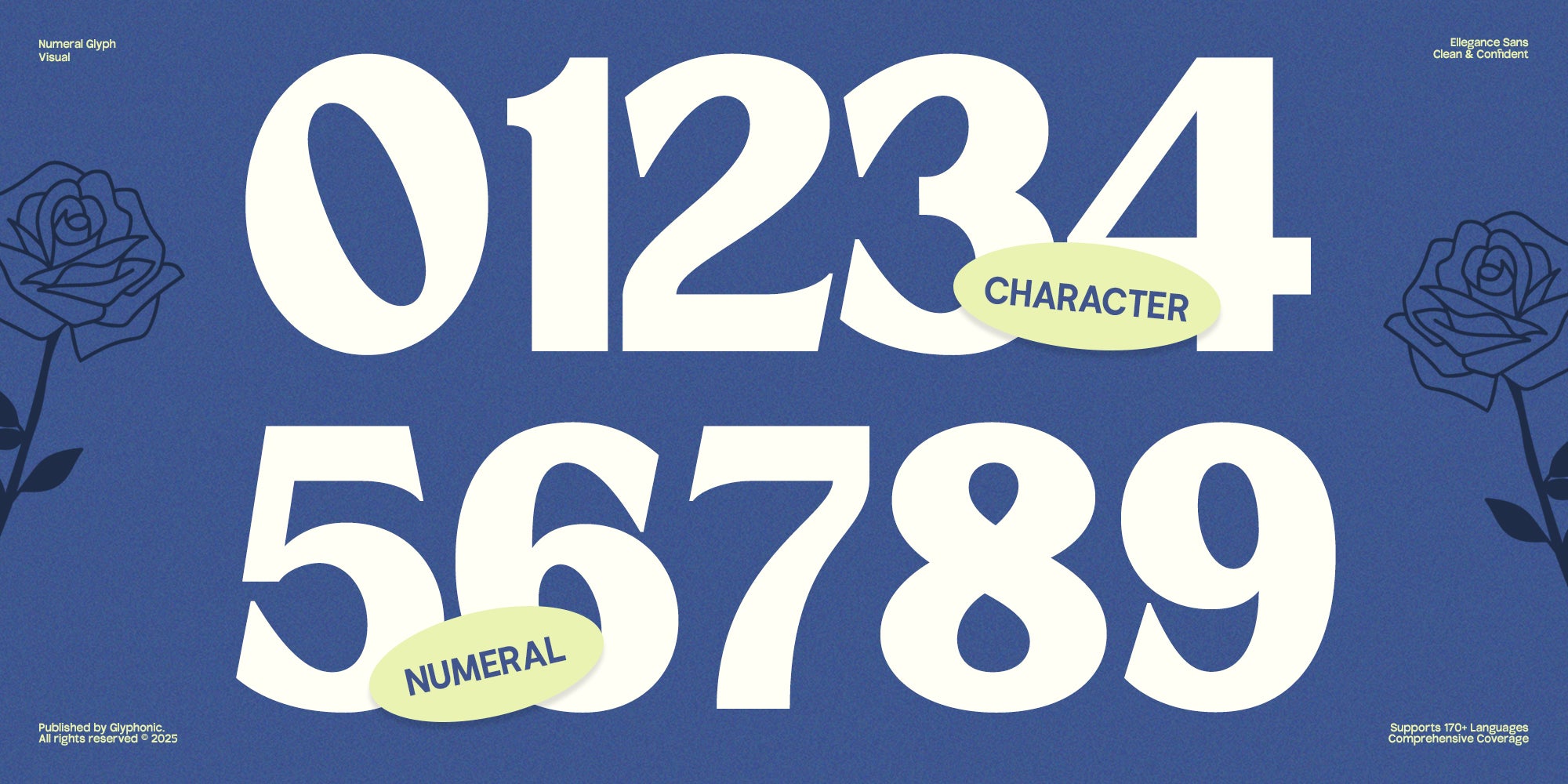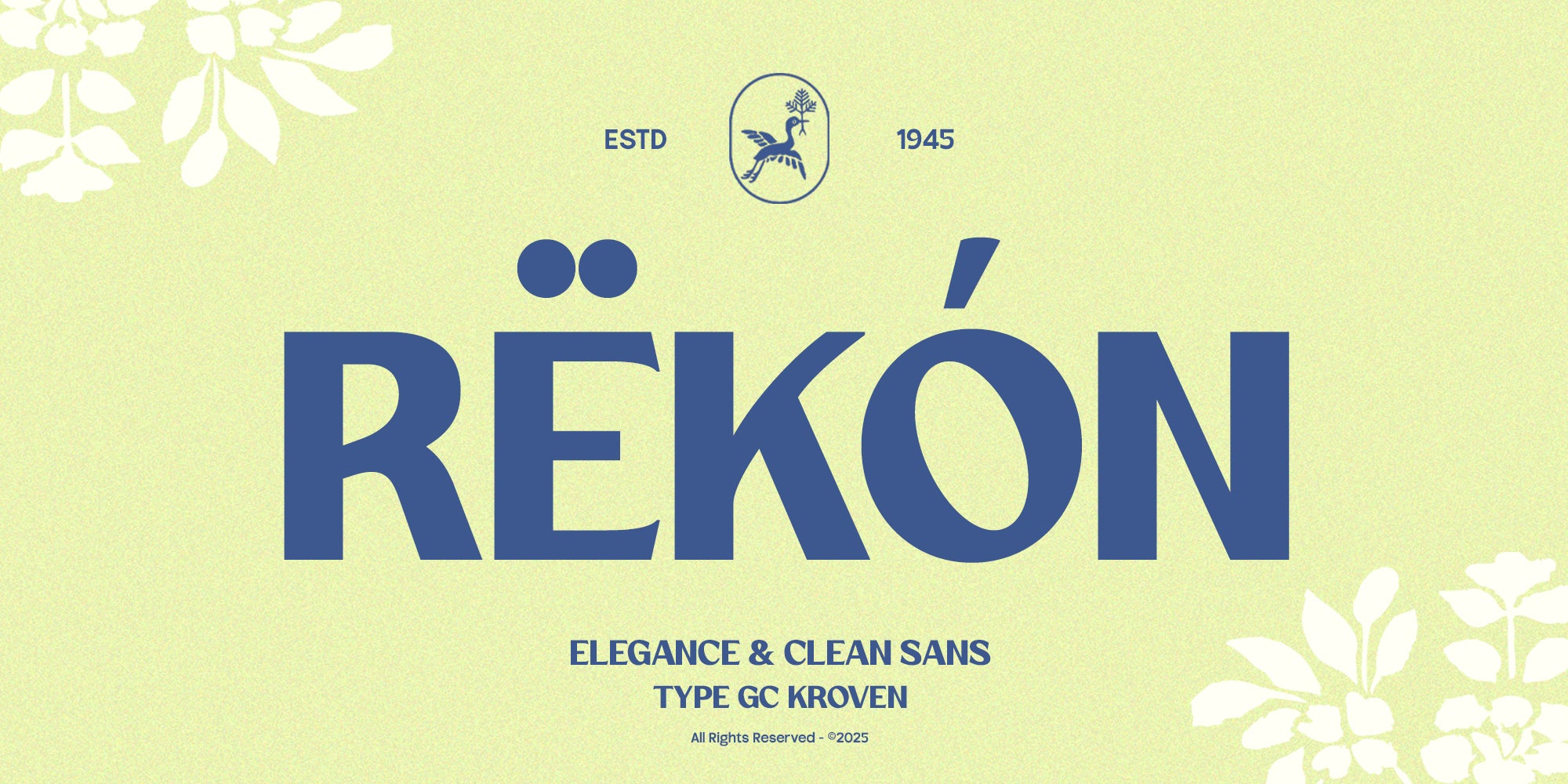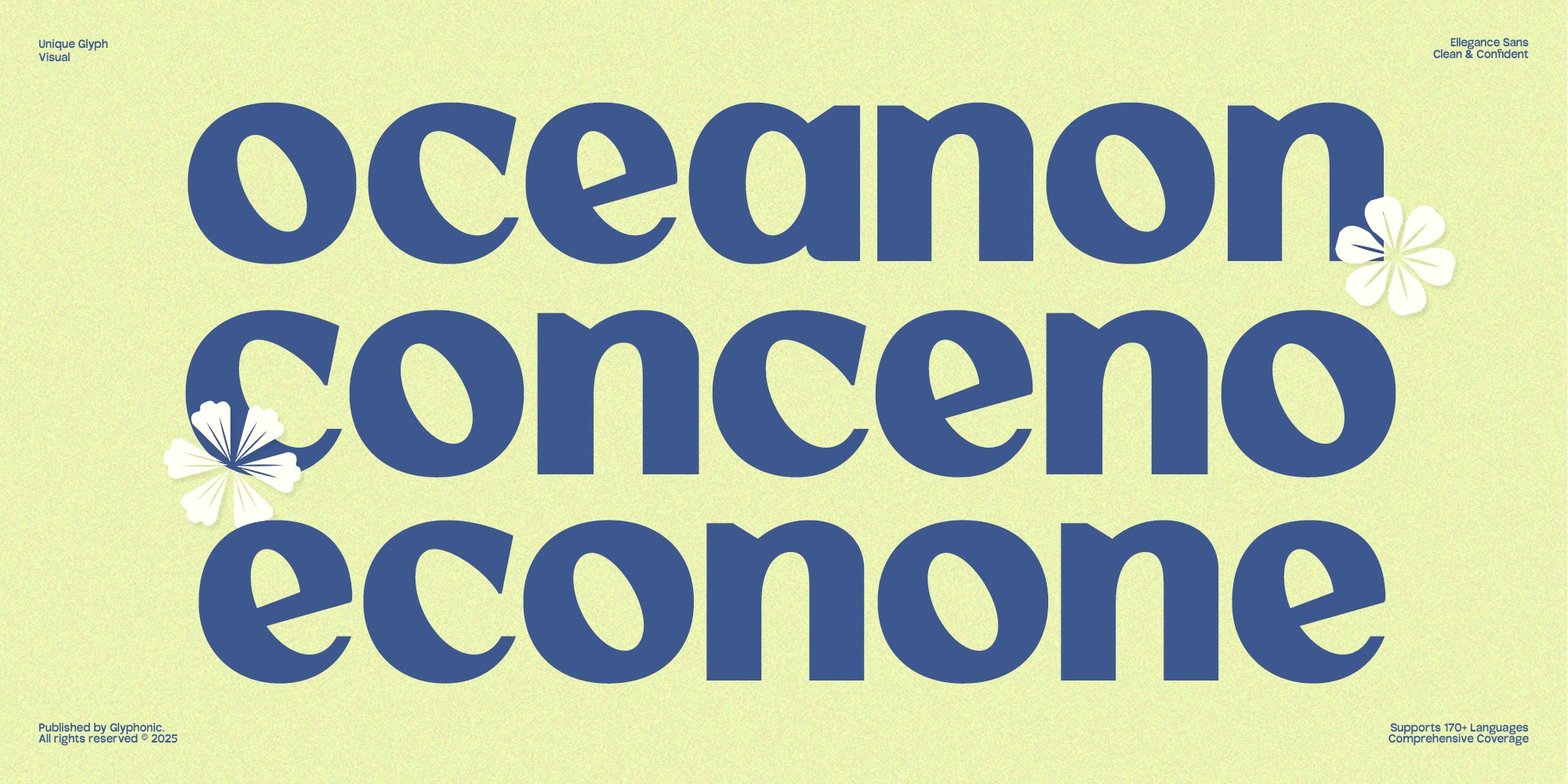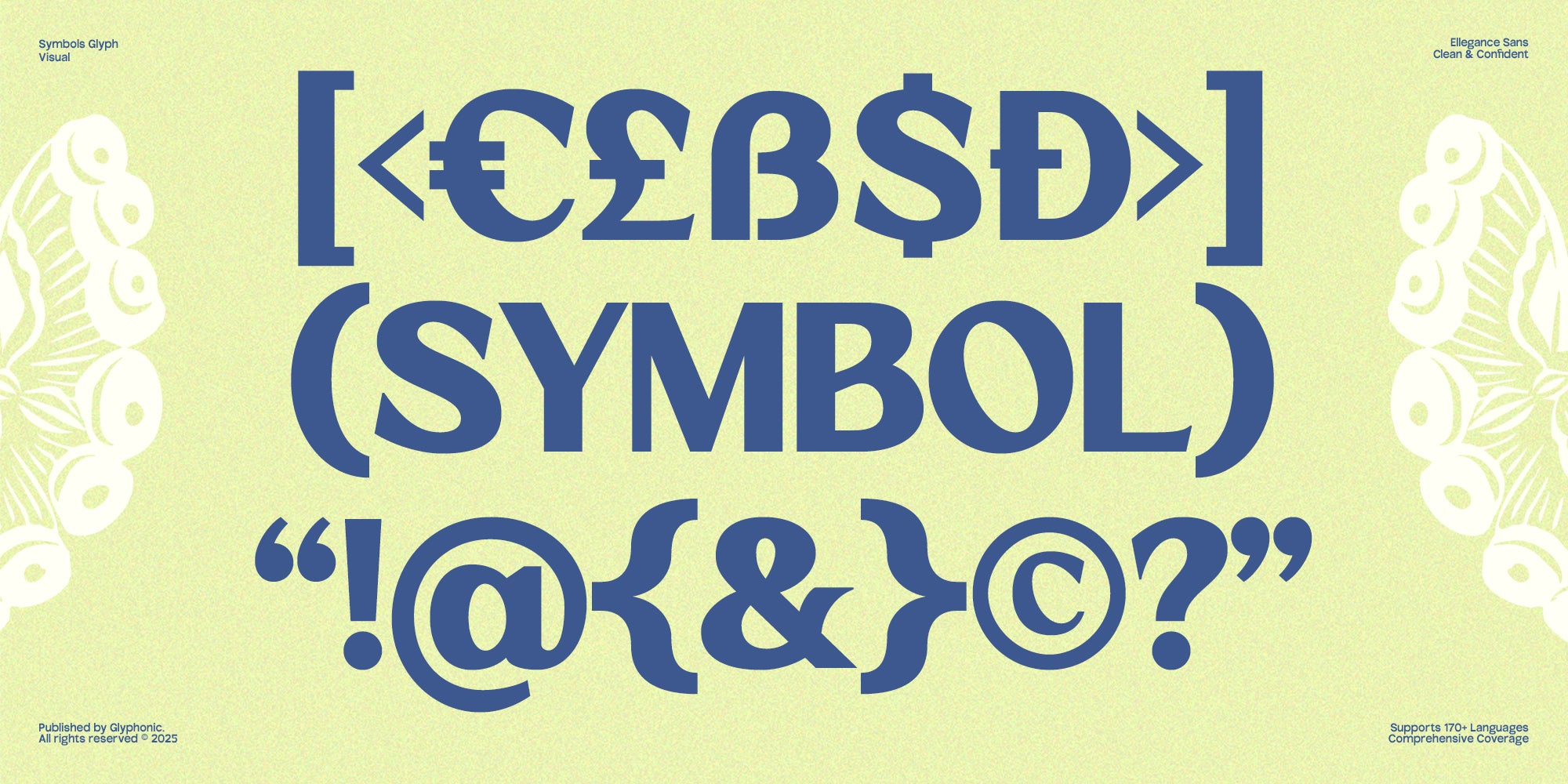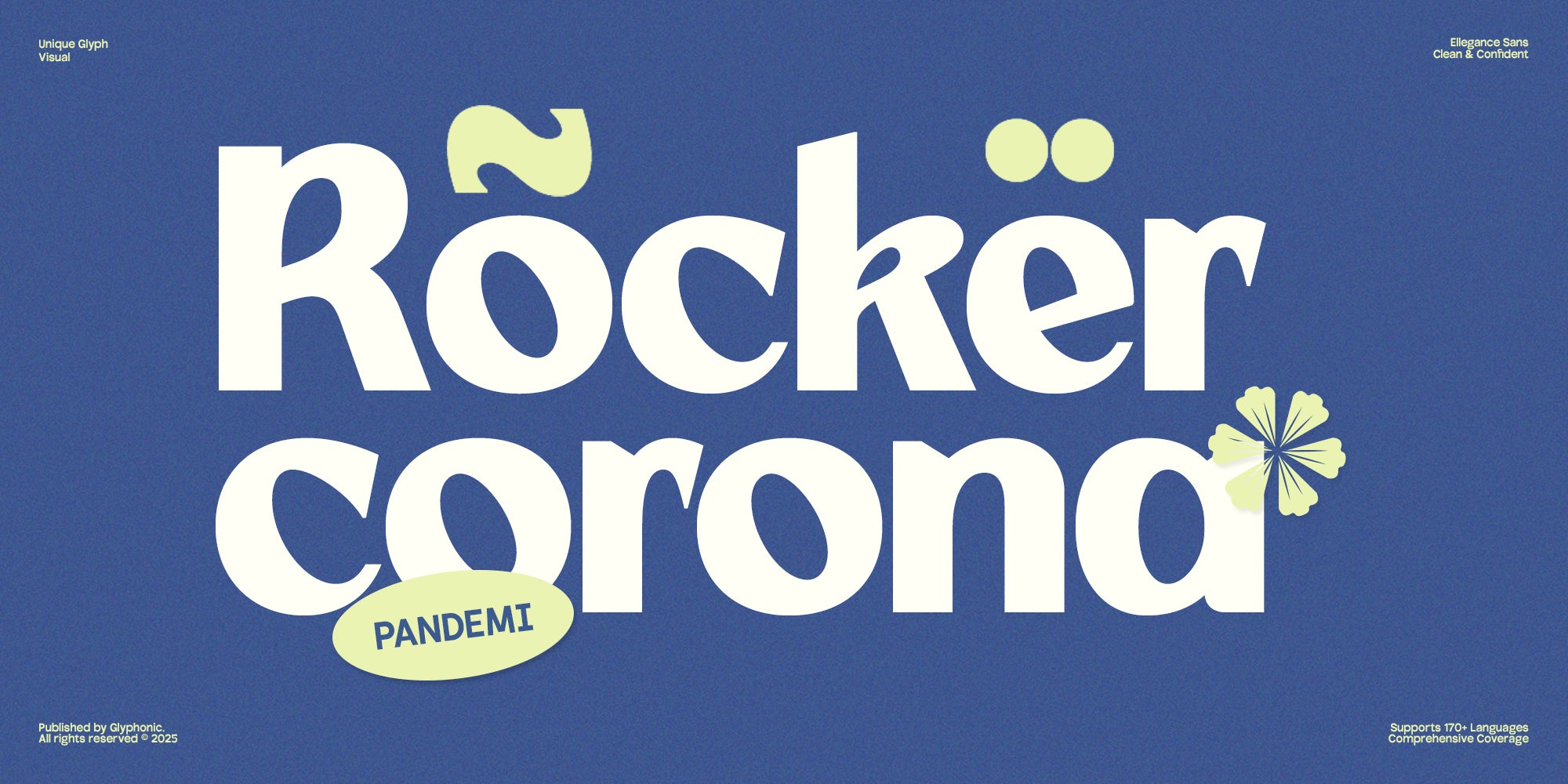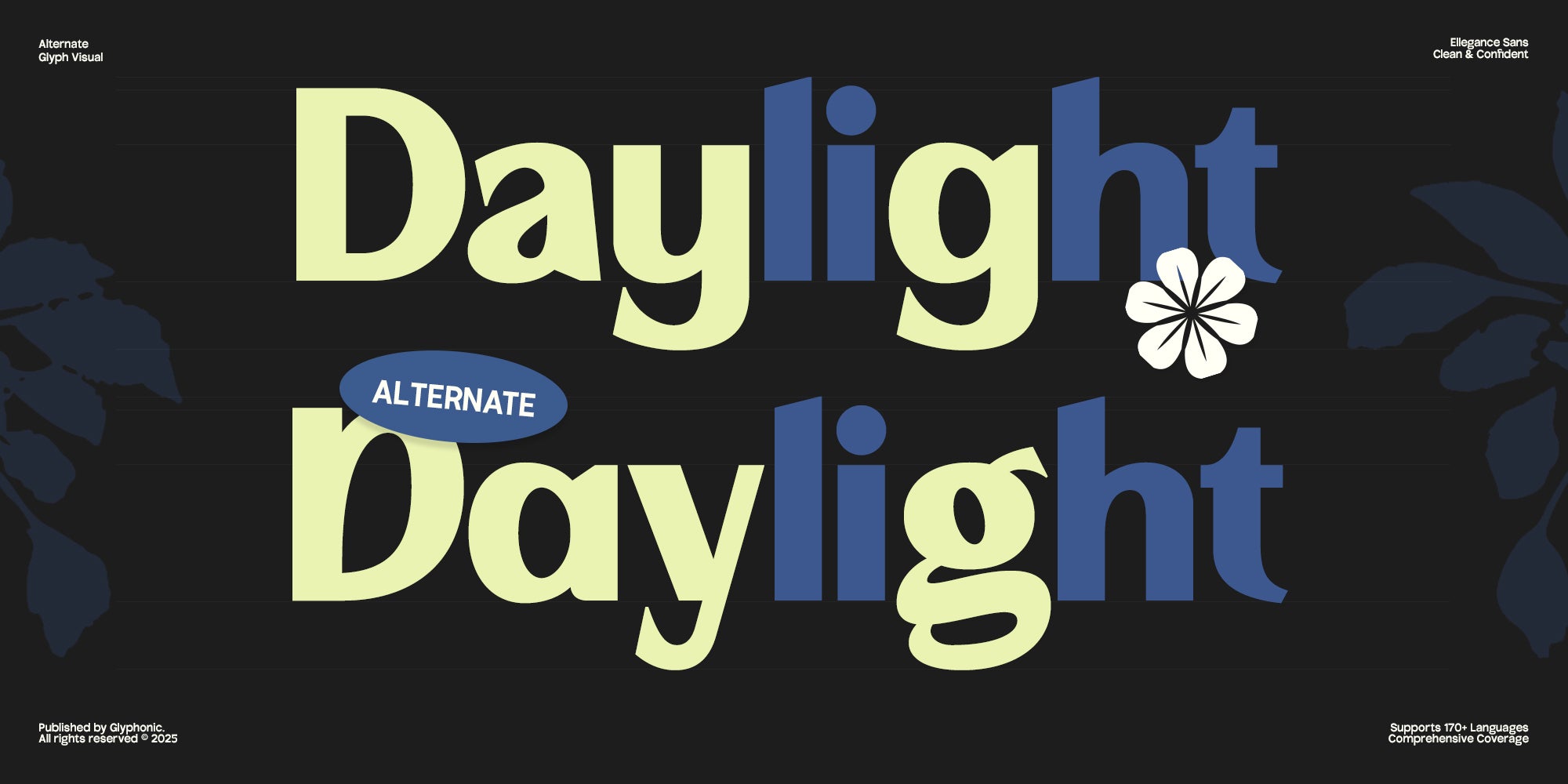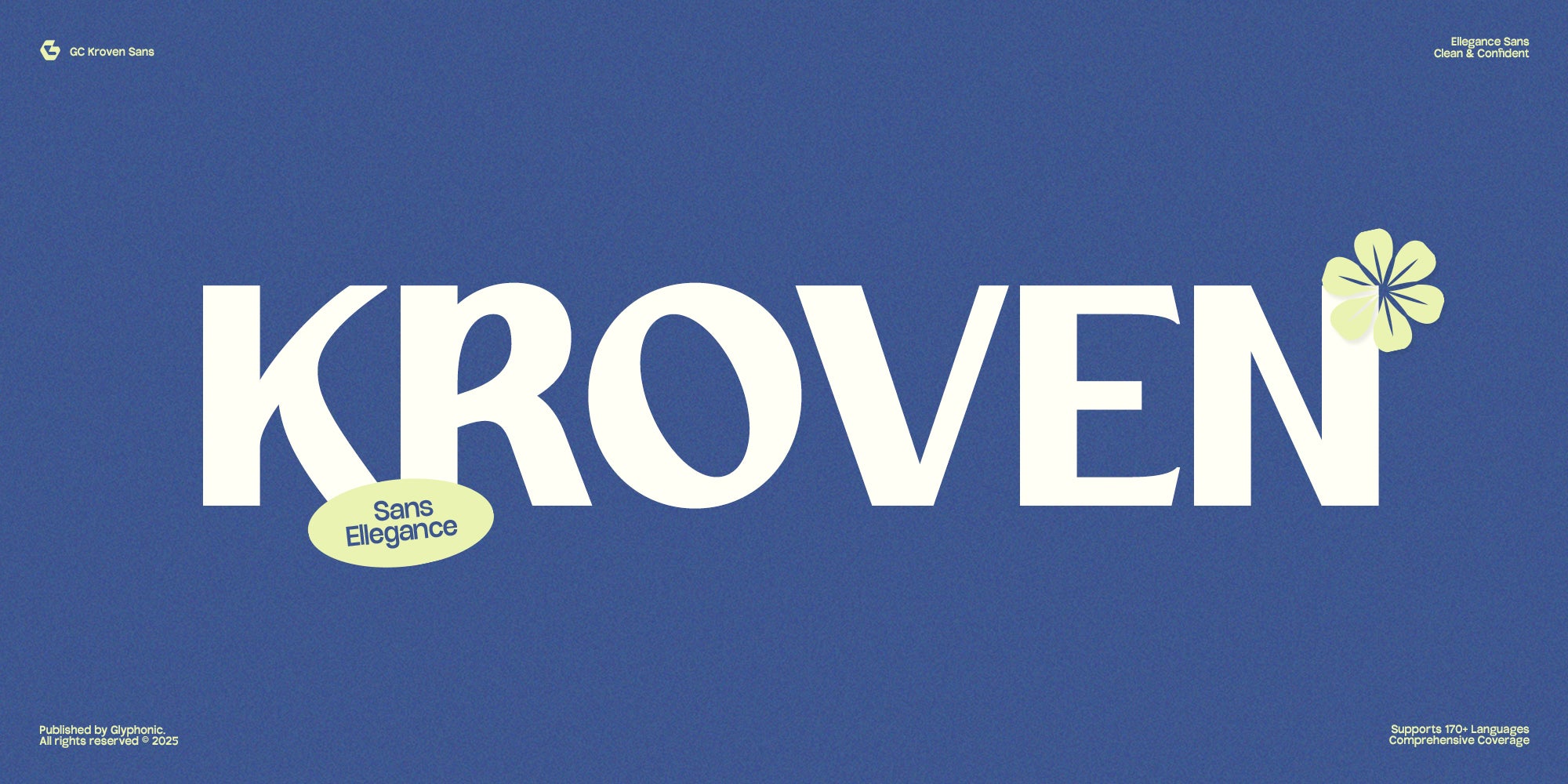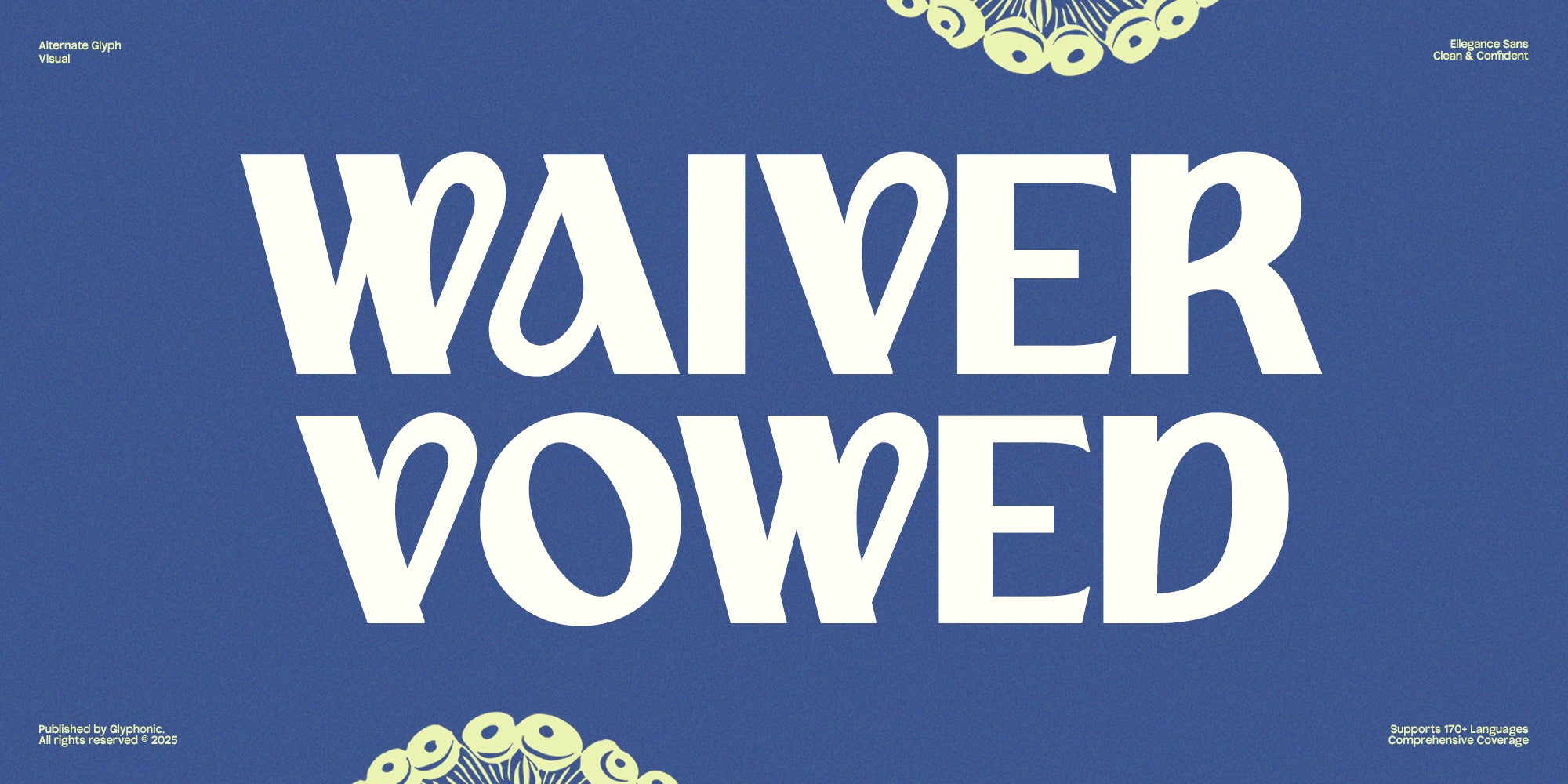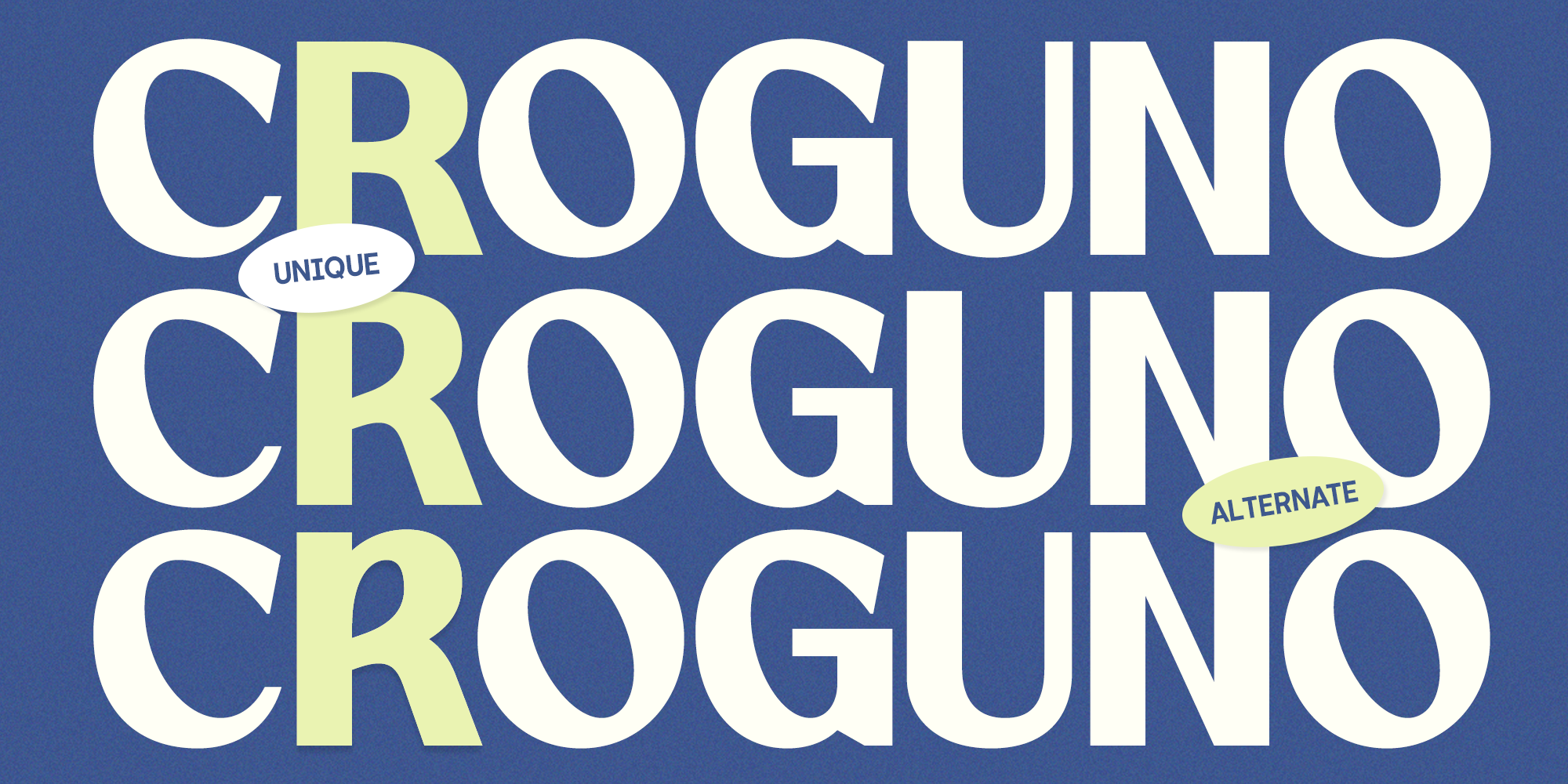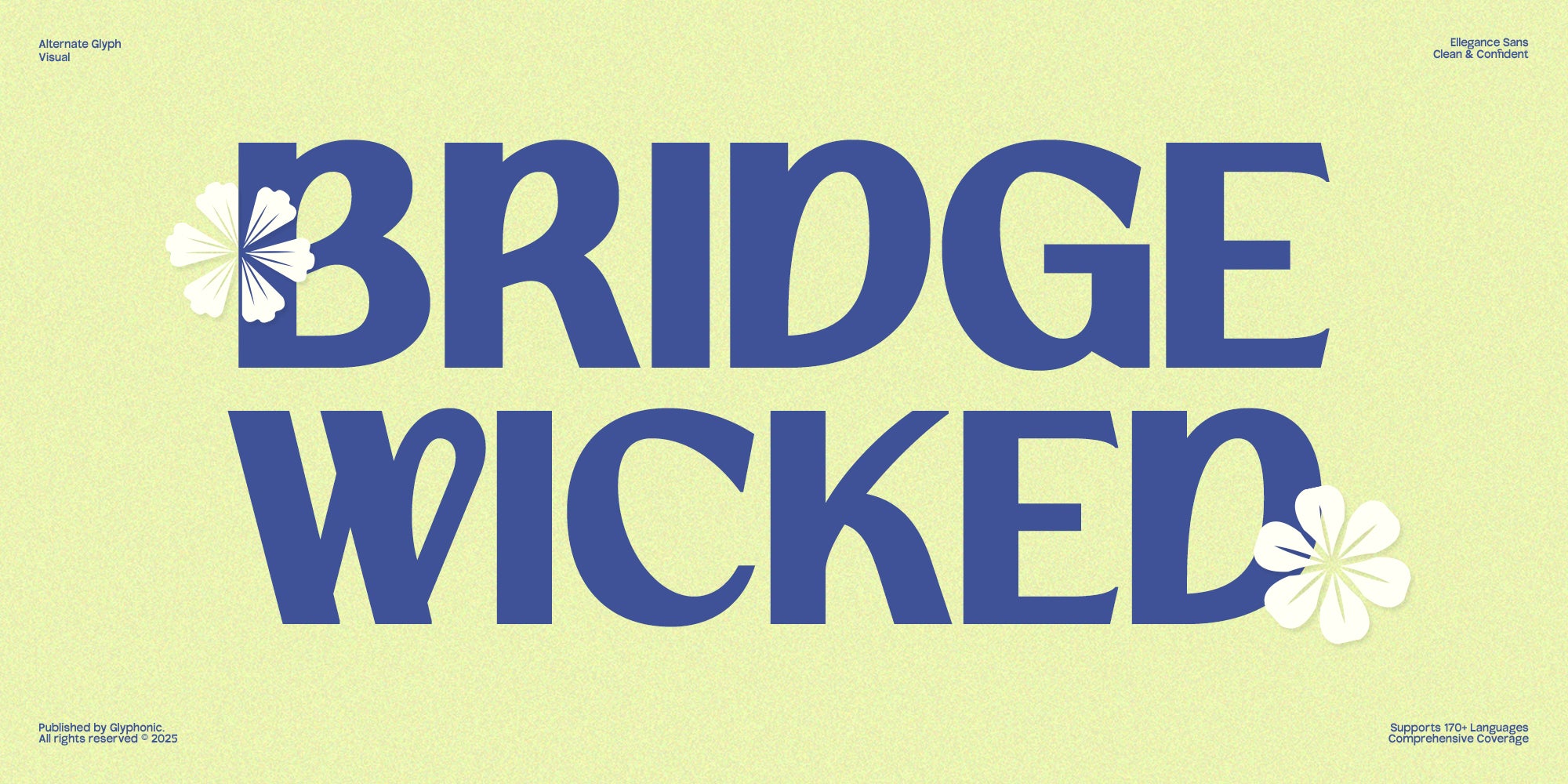
GC Kroven – Timeless Sans Elegance
GC Kroven by Glyphonic is a modern sans serif typeface that blends timeless elegance with confident clarity. Perfectly suited for headlines, branding, logos, packaging, and editorial layouts, it’s designed to deliver a bold yet refined statement in every use.
With its clean lines, balanced proportions, and subtle geometric touches, GC Kroven brings personality and sophistication to any design. Whether you're creating for fashion, lifestyle, or contemporary branding, this typeface offers versatility and enduring style.
Features:
- Uppercase & Lowercase
- Ligatures & Stylistic Alternates
- Numbers & Punctuation
- Multilingual Support
Make your design bold, refined, and timeless with GC Kroven.